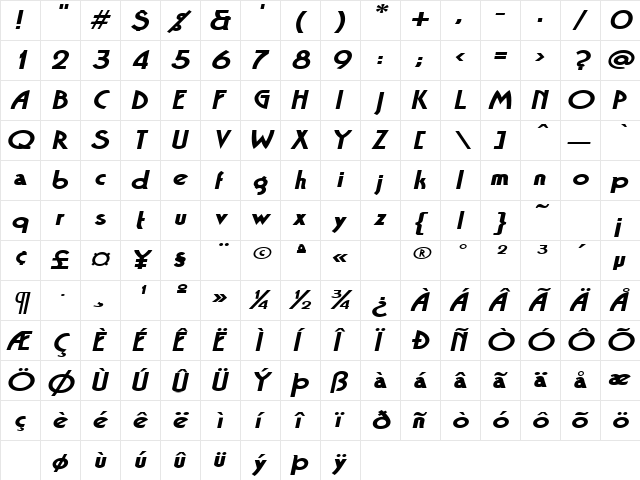
BandstandExtended Oblique
Design Context for BandstandExtended Typeface
BandstandExtended is a composed and adaptable typeface that performs quietly and consistently across a wide range of design contexts. The slanted form adds forward momentum and visual energy.
Pro Tip: Use BandstandExtended for emphasis, pull quotes, and subheadings where its slanted energy can add rhythm to the layout.